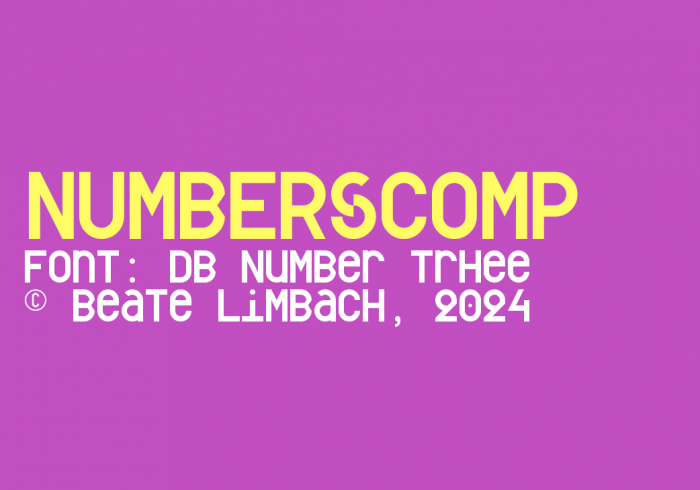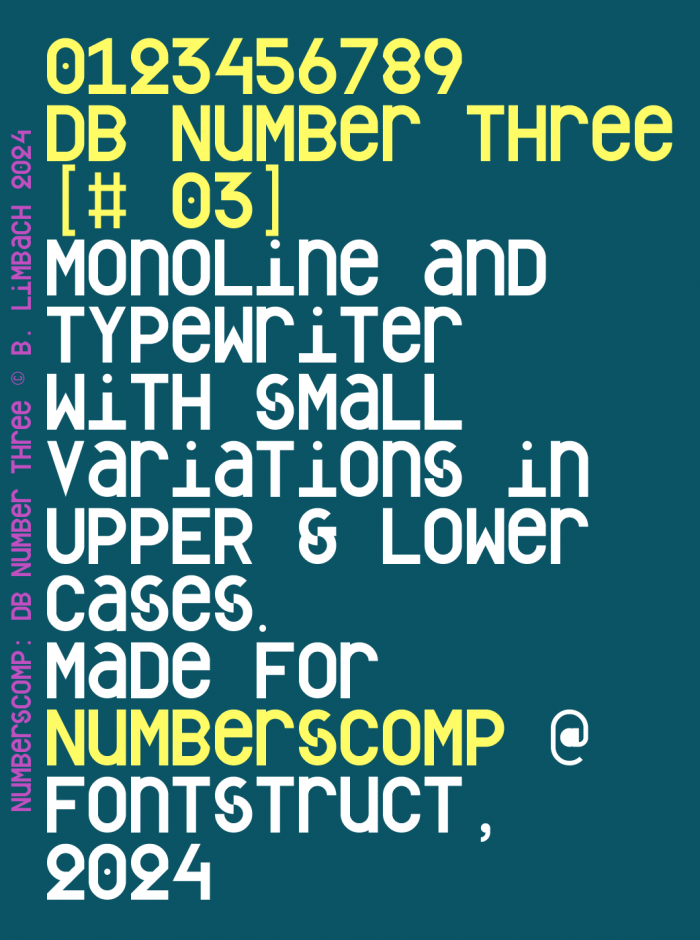
I really like this font, this technical rudeness, which is becoming style-forming. The number 7 seems to be missing something, it does not have a sharp end, as in other numbers, maybe a line in the middle, or here are a few more options.